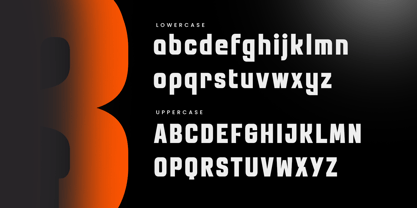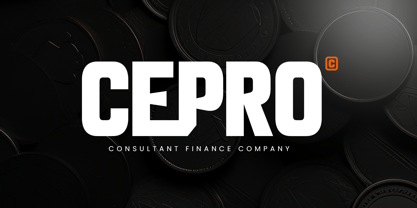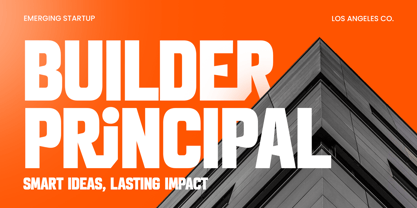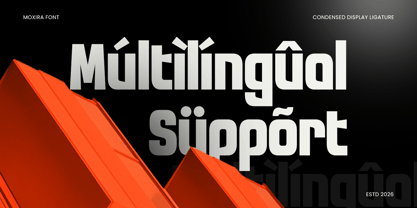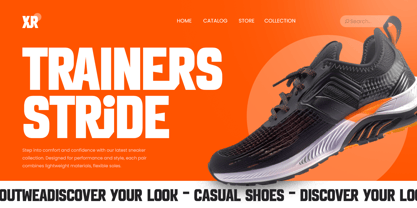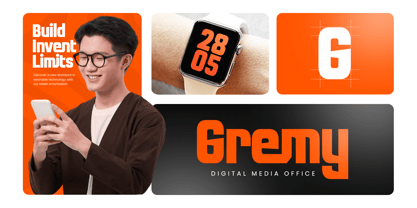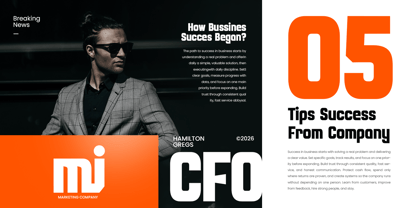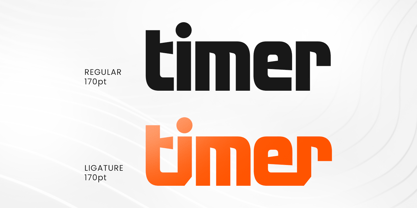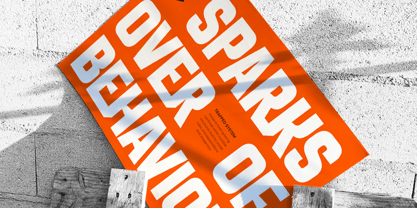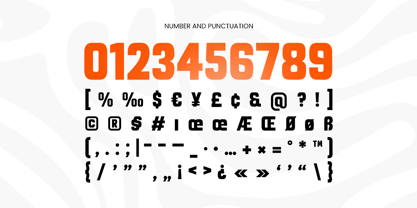
MOXIRA is a condensed corporate font built to deliver clarity, professionalism, and modern business confidence. With a clean structure and space-saving proportions, this typeface creates a sharp, efficient look that feels corporate-ready while staying sleek and contemporary.
Designed for corporate branding and communication, MOXIRA works seamlessly across logos, brand systems, website headers, presentations, reports, posters, signage, and social media graphics. Its condensed width helps fit more text into tight layouts while keeping readability strong—ideal for business headlines and structured design systems.
Whether you’re shaping a corporate identity, designing a modern pitch deck, or creating clean marketing visuals, MOXIRA provides a reliable typographic foundation that looks polished, professional, and consistent across digital and print projects.
Inspiration Behind MOXIRA
MOXIRA is inspired by modern corporate design systems and condensed editorial typography—where efficiency, clarity, and structure drive communication. Built for business-focused branding, it supports clean headlines, modern presentations, and brand layouts that need strong hierarchy without sacrificing a sleek, professional tone.
MOXIRA Font Features
Condensed corporate letterforms with clean modern structure
Optimized for business branding and headline typography
Strong readability for presentations and information-heavy layouts
Uppercase, lowercase, numerals, and punctuation included
OpenType features for polished professional typesetting
Corporate branding and modern business identities
Presentations, pitch decks, and reports
Website headers, UI typography, and digital layouts
Posters, signage, and structured promotional design
Social media graphics and brand communication assets